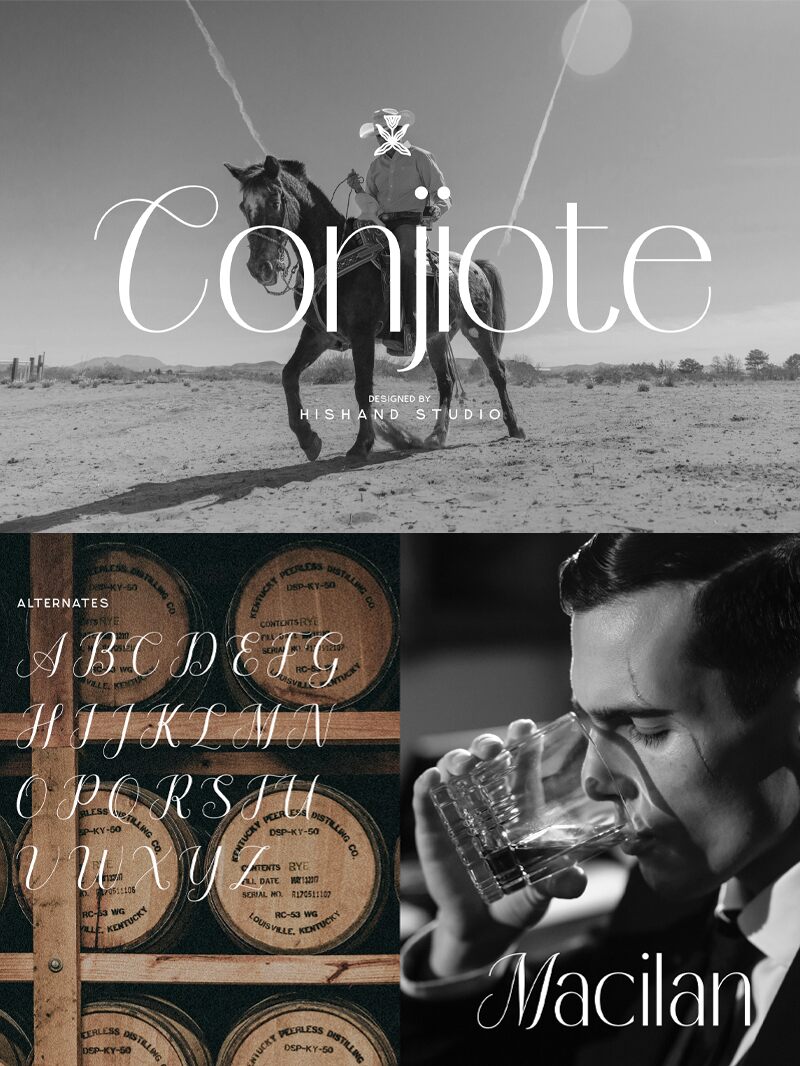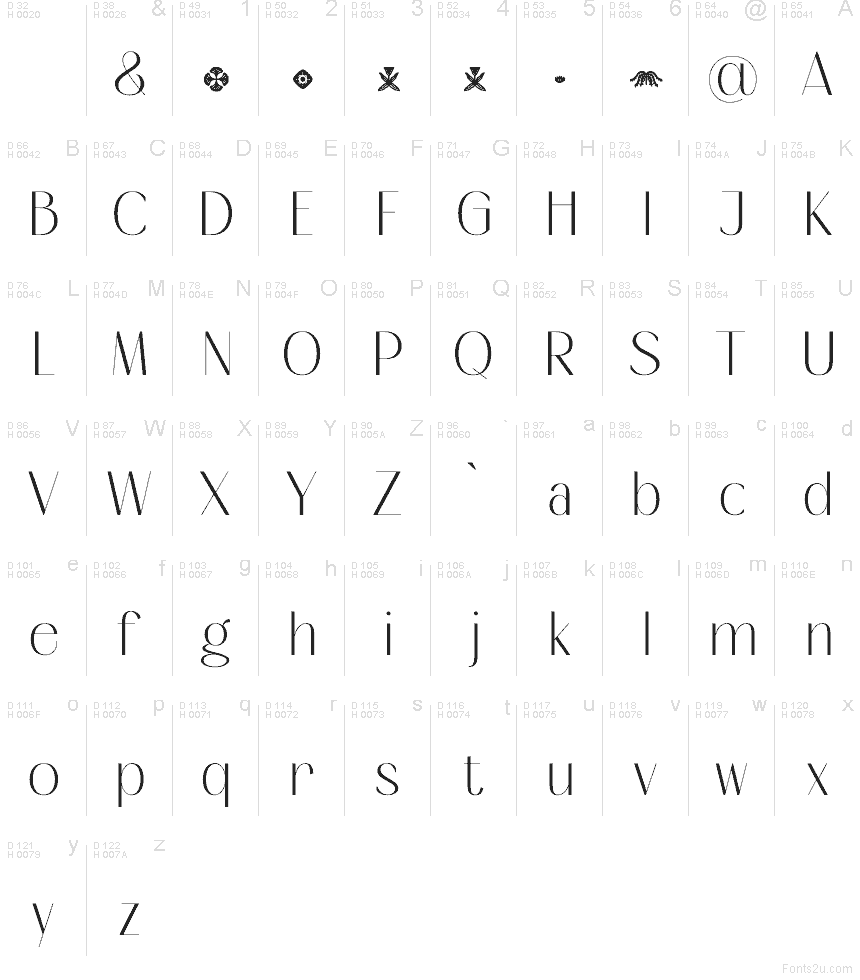
Conjiote font by Hishand Studio is a free sans serif font with a strikingly slender silhouette and graceful curves that feel almost like ink drawn with a fine nib. The letters are tall, airy, and lightly spaced, giving every word a sense of poise and quiet luxury. Subtle flares and elegant details keep it from feeling cold, so headlines and logos gain a refined, editorial glow without looking stiff.
Using Conjiote, you can give fashion branding, cosmetics packaging, magazine covers, wedding stationery, and sleek poster titles an instantly polished voice. This free font shines when used large, where its delicate lines can really breathe; pair it with a simple geometric sans at smaller sizes for body copy. It’s a natural fit for moodboards, social media graphics, and minimalist website hero text that needs to whisper elegance rather than shout.